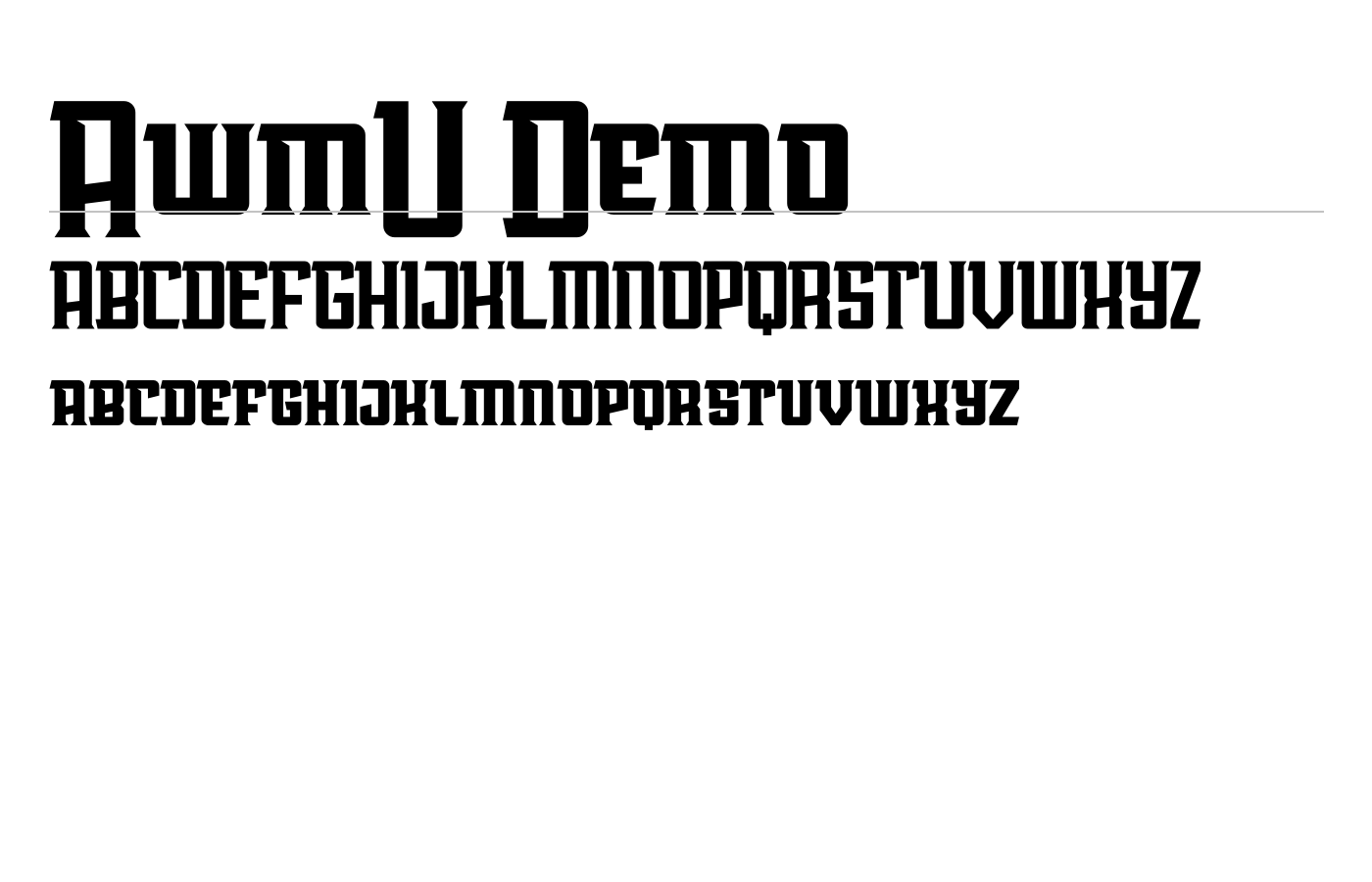
AwmU Demo Font is a bold, condensed slab serif typeface with strong geometric shapes and sharp, blocky serifs that give it a powerful, industrial feel. Its tall, tightly spaced uppercase letters create a striking and authoritative presence, making it ideal for logos, headlines, and branding that require a modern yet sturdy and confident look. This font suits projects that want to communicate strength, reliability, and a touch of vintage ruggedness.
AwmU Demo Font
About AwmU Demo Font